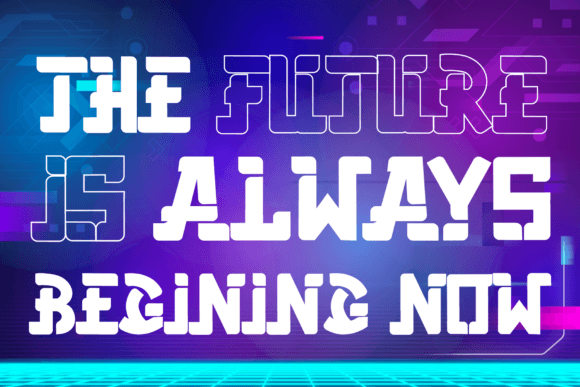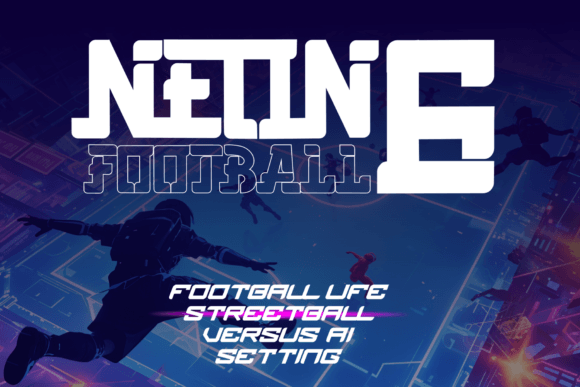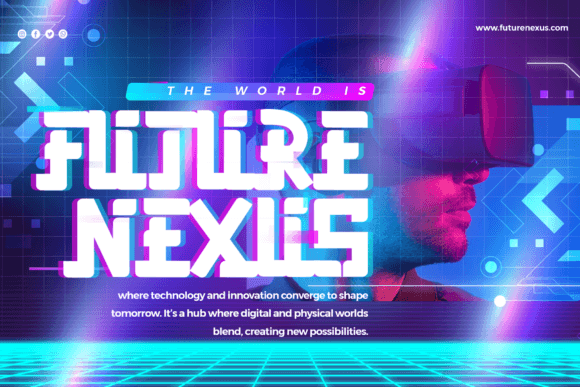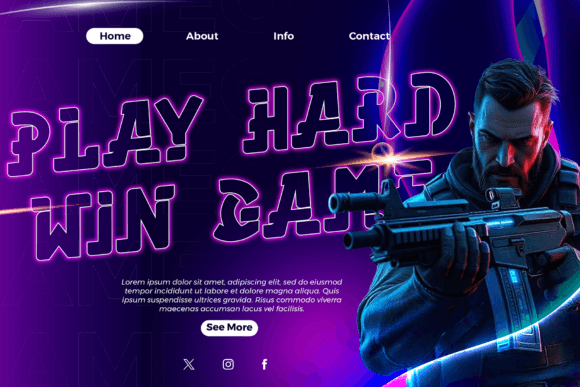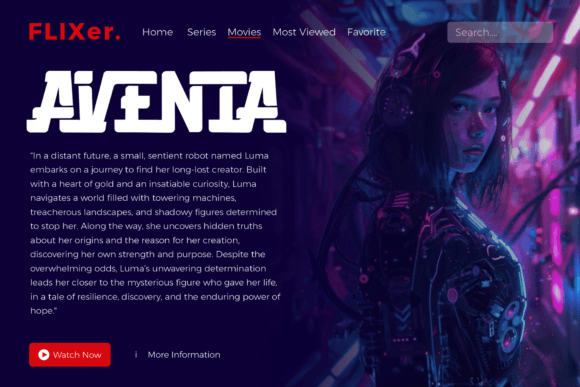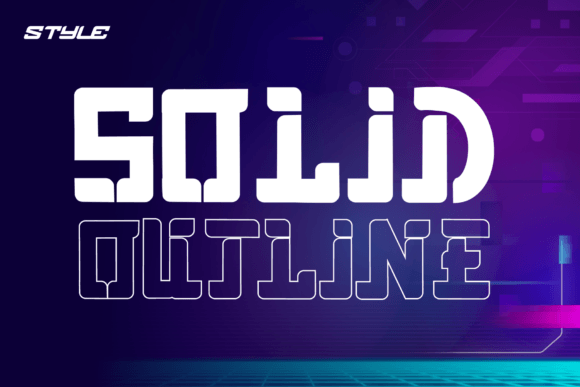
Get Ready to Blast Off into the Future with Astro Volta Font
Have you ever sat at your desk, staring blankly at a blank screen, trying to spark that elusive creative spark? You know, the one that makes your design ideas come alive and transport you to a world of endless possibilities? For designers like you, the right font can be the difference between a good design and a great one.
Enter Astro Volta Font, a modern display font that’s out of this world – literally. With its two unique variants, the robust solidity and the elusive outline, Astro Volta Font embodies the dynamic boldness of science-fiction, giving your projects a striking aesthetic that’s sure to turn heads. Whether you’re designing a futuristic sci-fi movie poster or a sleek tech brand identity, Astro Volta Font is the perfect tool to help you achieve your vision.
Astro Volta Font Key Features
- Unique Characteristics: The Astro Volta Font features a unique blend of futuristic and retro elements, with a distinctive geometric shape and a bold, eye-catching aesthetic.
- Style Variations: Astro Volta Font is available in multiple styles, including bold, italic, and regular, allowing users to customize the look and feel of their typography to suit their needs.
Astro Volta Font Review
I recently had the chance to work with the Astro Volta font, and I must say it’s a unique and intriguing addition to any design project. ✨ The font’s bold, futuristic aesthetic makes it perfect for sci-fi themed designs, technology-related branding, or any project that wants to convey a sense of innovation and advancement.
Here are some of the things that I think work well with the Astro Volta font:
- ✨ Versatility: The font comes in a range of styles, from bold and chunky to thin and elegant, making it easy to adapt to different design contexts.
- ✨ Unique aesthetic: Astro Volta’s blend of futuristic and industrial elements makes it stand out from more traditional fonts.
- ✨ High-quality rendering: The font is well-crafted and rendered, making it perfect for both digital and print designs.
However, I do have a few concerns about the Astro Volta font:
- ⚠️ Limited legibility: In certain font sizes or styles, the Astro Volta font can be difficult to read, especially for longer blocks of text.
- ⚠️ Limited language support: The font may not be optimized for non-Latin scripts, which could be a limitation for designers working on international projects.
Overall, I think the Astro Volta font is a great choice for designers looking to add a touch of futurism to their projects. While it may have some limitations, its unique aesthetic and versatility make it a valuable addition to any design toolkit.
Tips for Getting the Most Out of Astro Volta
To get the most out of Astro Volta, use it for modern and tech-related designs. You can also use it for titles and headings to add a touch of sophistication.
Astro Volta is commonly used for:
- Modern website designs
- Mobile app designs
- Corporate identity designs